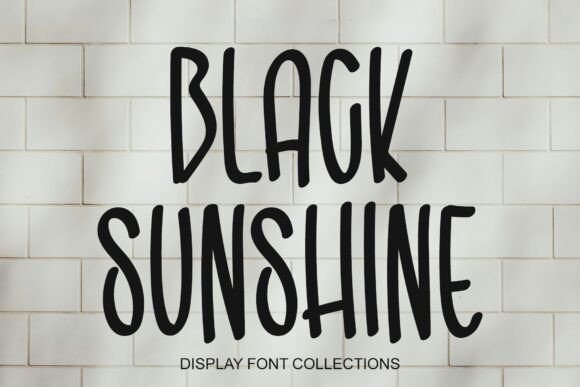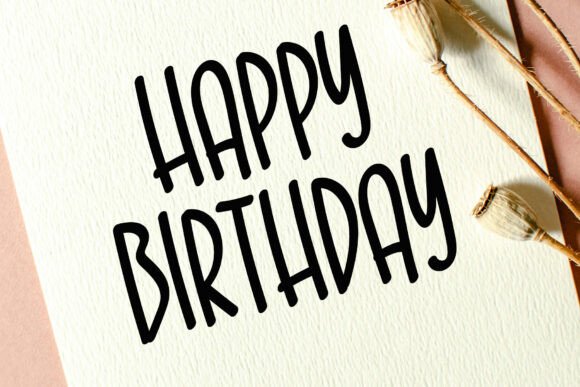
Black Sunshine Font: A Cute Handwritten Font for Cricut & DIY Projects
About the Black Sunshine Font
Step up your design game with Black Sunshine Font, a font that exudes confidence and style. Black Sunshine is a beautiful handwritten font. Its distinct and well-rounded letters make this font a masterpiece. Fall in love with its incredibly versatile style and use it to create spectacular designs!
Black Sunshine’s bold, friendly personality makes it ideal for headlines, short-form content, and branding applications where a handwritten feel is desired. It works exceptionally well on packaging, posters, and social media graphics, adding a touch of approachability and warmth. However, its less-than-optimal legibility makes it unsuitable for body text or UI elements requiring extended reading.
Consider pairing Black Sunshine with a clean sans-serif like Lato for a modern contrast, or a classic serif such as Garamond for a more traditional balance. A simple geometric sans-serif provides a contemporary feel while retaining legibility, should you need to include smaller supporting text.
The font’s inherent charm shines best in projects that emphasize a handmade aesthetic—think artisanal food brands, children’s products, or event invitations. Avoid using it where clarity and readability are paramount.